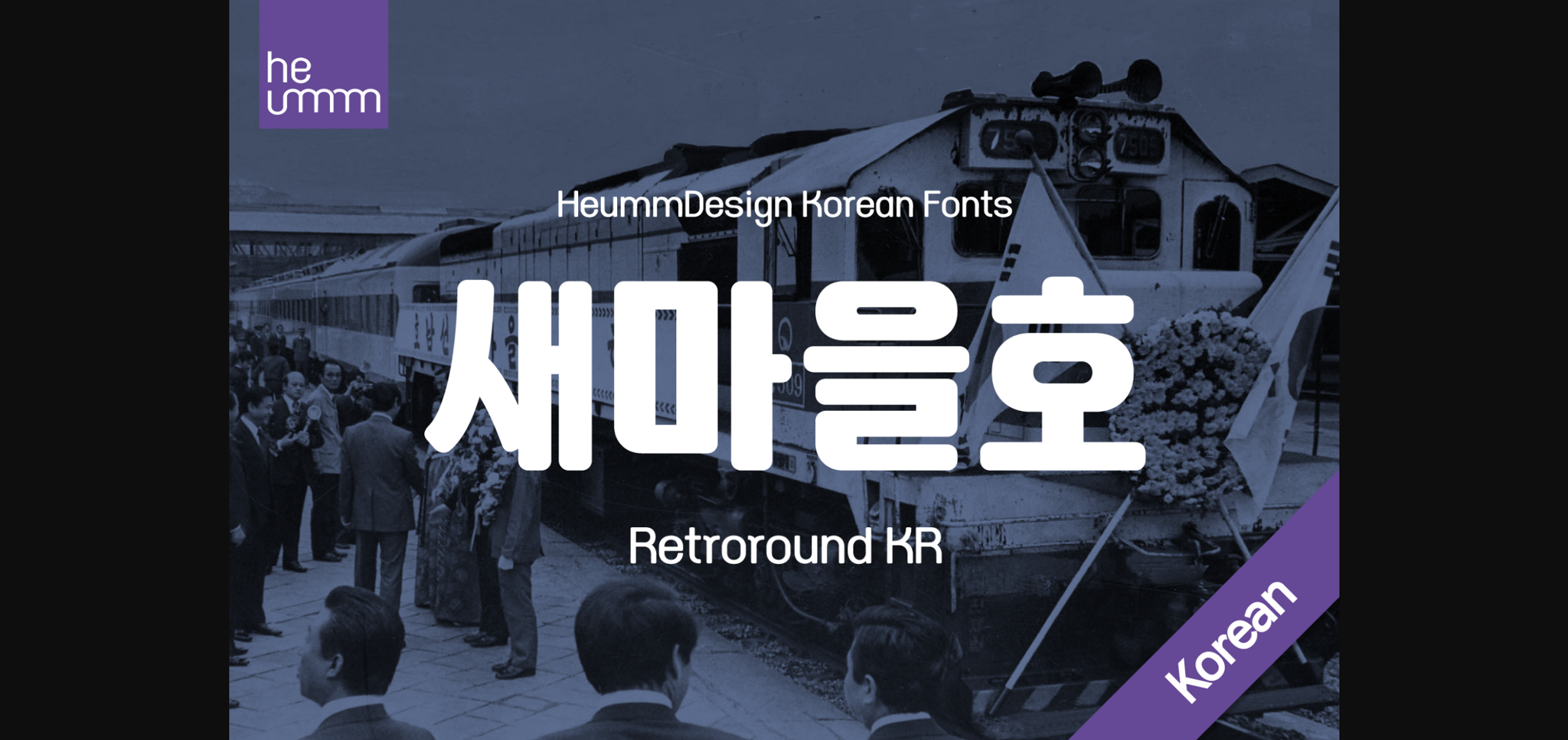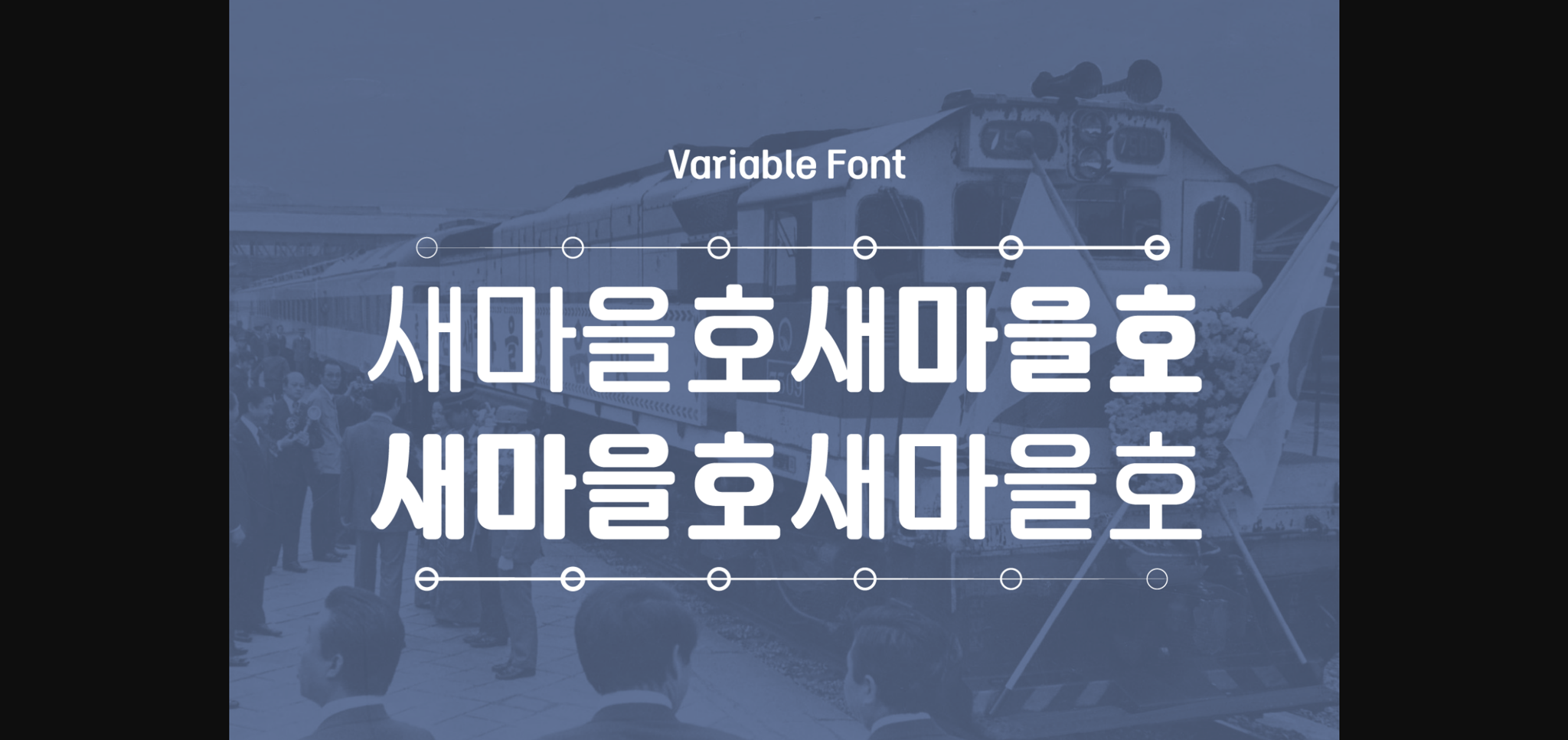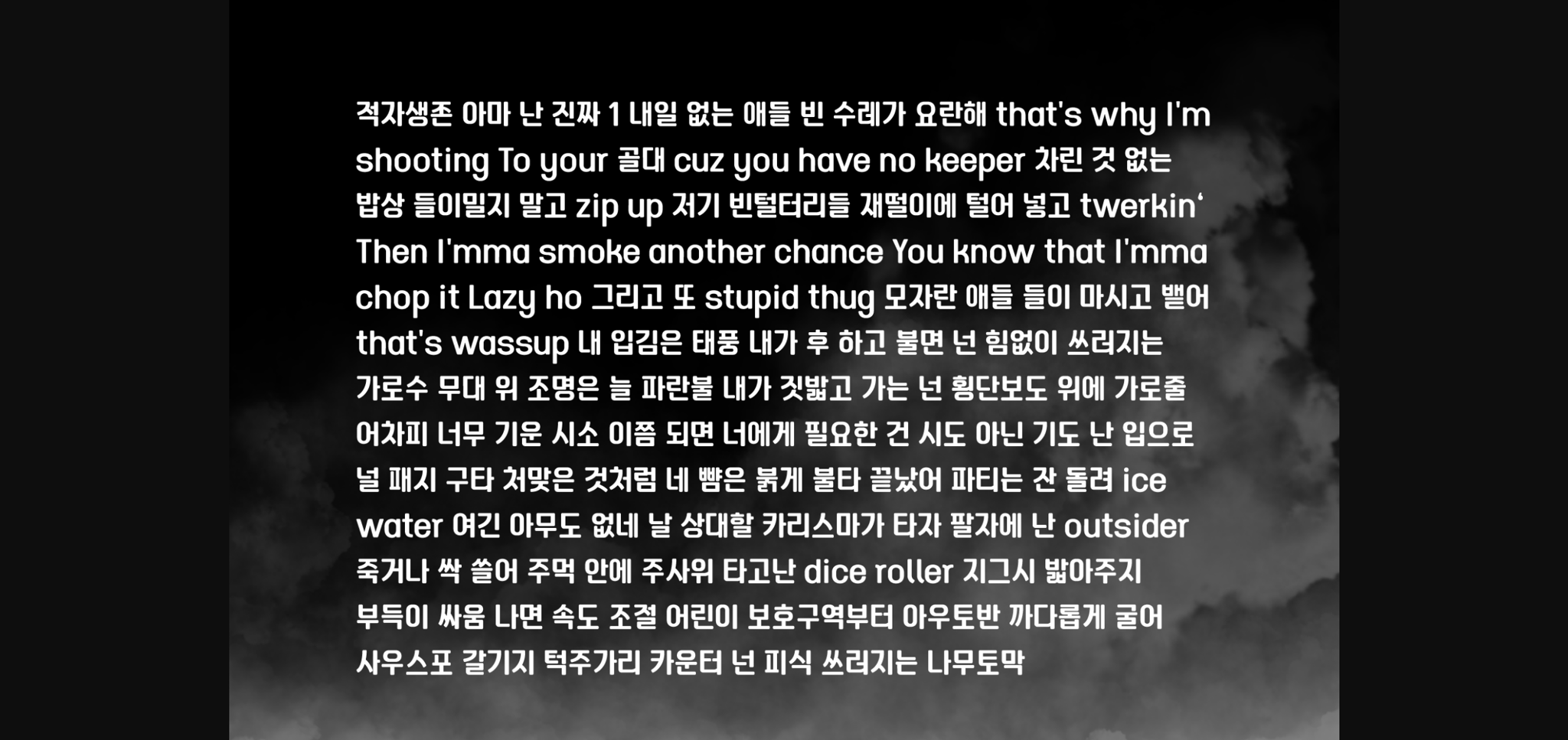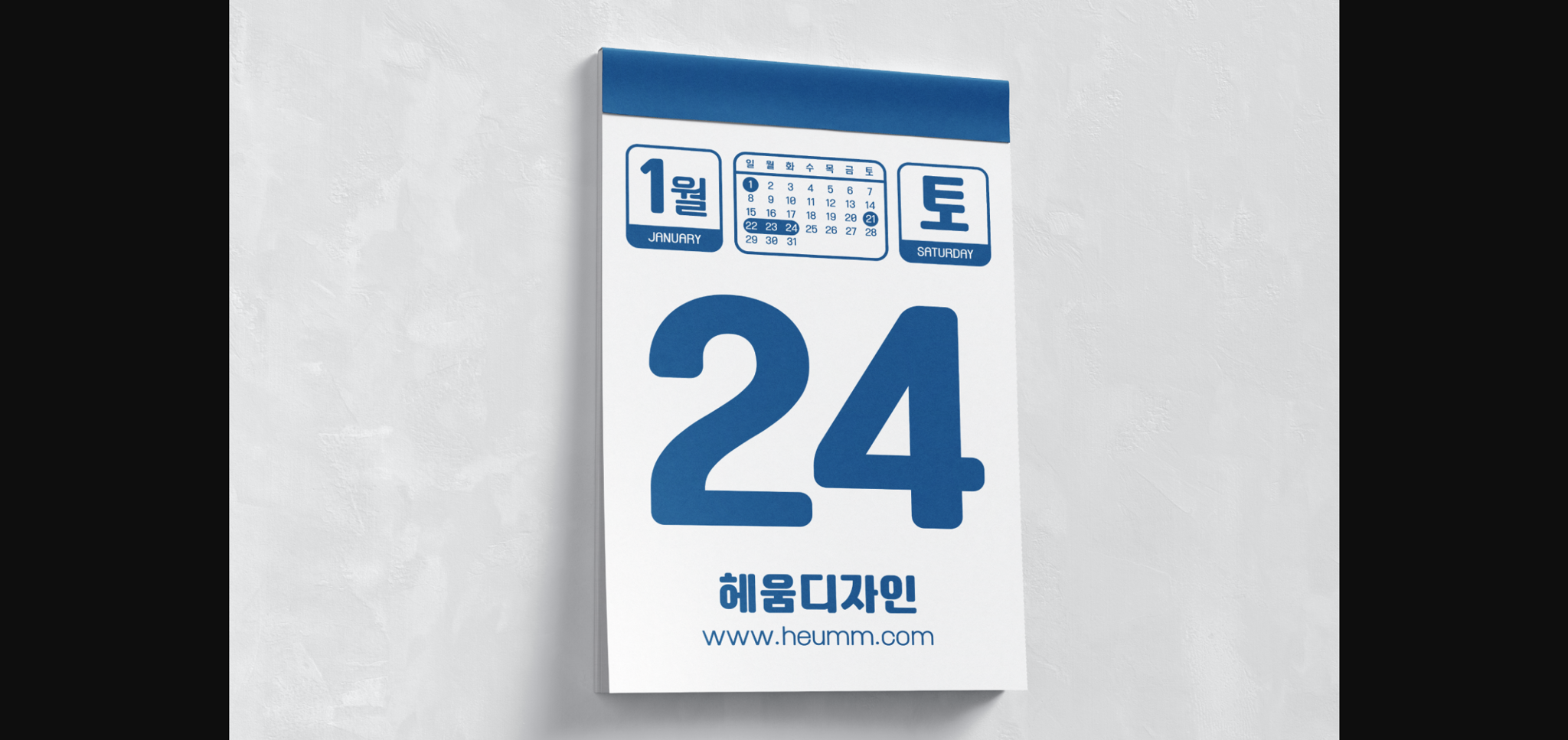
About Retroround Kr Font
‘HU Retroround KR’ is a font that captures the feel of the retro typefaces used on signboards during Korea’s modernization era. This font has a variable function, allowing users to fine-tune the thickness they want. (Available only in Adobe programs.) Six basic weights are provided so that they can be used even in programs that do not apply the variable function. This font includes Hangul, Korean.